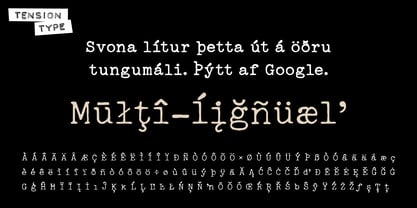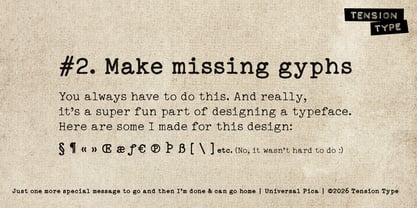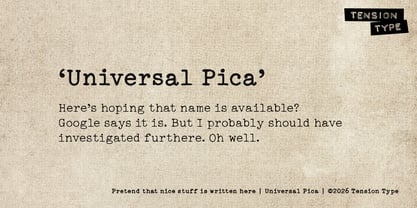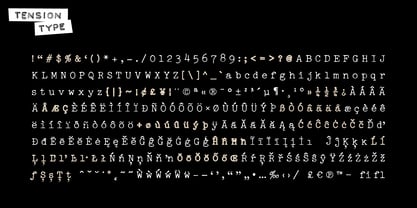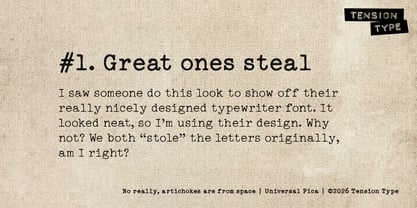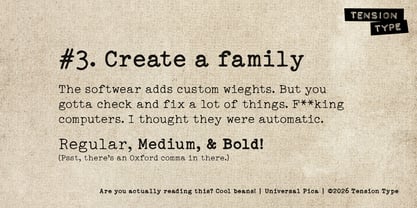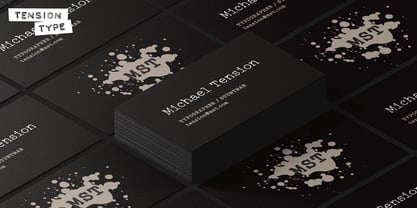
Universal Pica
by Tension Type
The Universal Pica Font Family was designed by Michael Tension and published by Tension Type. Universal Pica contains 3 styles and family package options. More about this family
I found a clean sample of a Pica typeface that match one of my designs from a dirty old Hermes typewriter from France. I decided to make a font family from it. Might as well have a cleaner version, right? Sure there are a lot of Pica typewriter fonts out there. But this one is by Tension Type.
It only looks monospaced. But it’s not. It’s been designed with Class Kerning. Good for designs you want add an organic look to. Bold and medium weights so you don’t have to underline anything if you don’t want to.
Designers: Michael Tension
Foundry: Tension Type